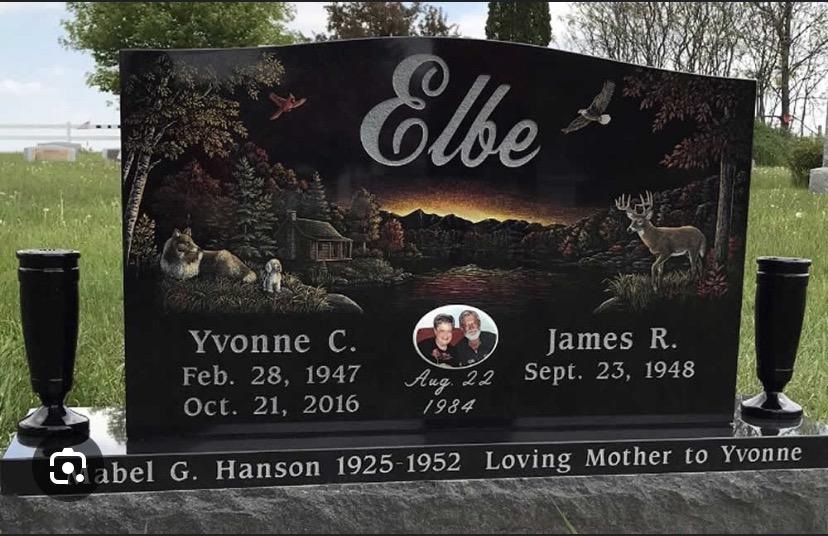
Family Name font
Hi Eric, what you have here are two different fonts that have been combined. The capital ‘E’ is a version of the Commercial Script font. It is bolder than typical versions, and there are bolder versions like this available in both Monu-Cad and one for Gerber that can be purchased through DesignMart. The Monu-Cad version is named Script Sandblast. It is also possible someone just added some weight to the ‘E’ using a stroke or outline.
The second font is typically named Sport Script or Athletic Script, though there are several other versions under different names. It is available in most memorial design software in some form or another, and is similar to Peebles Script in both Monu-Cad and Gerber.